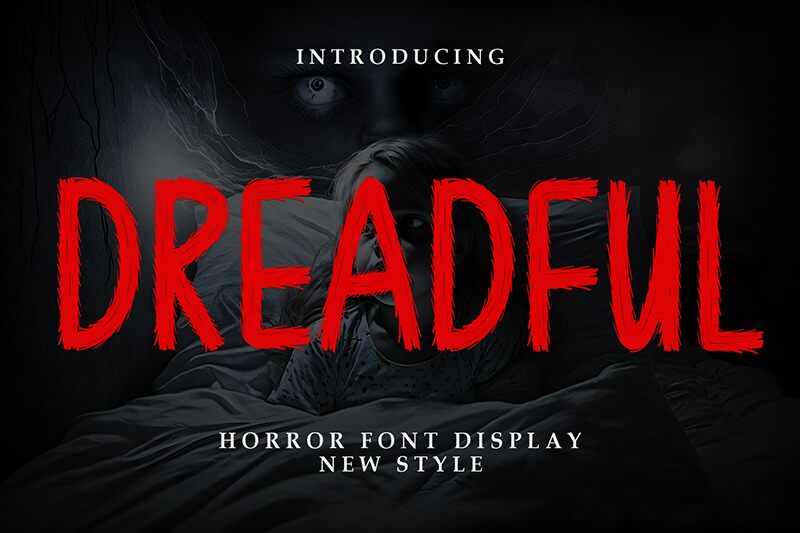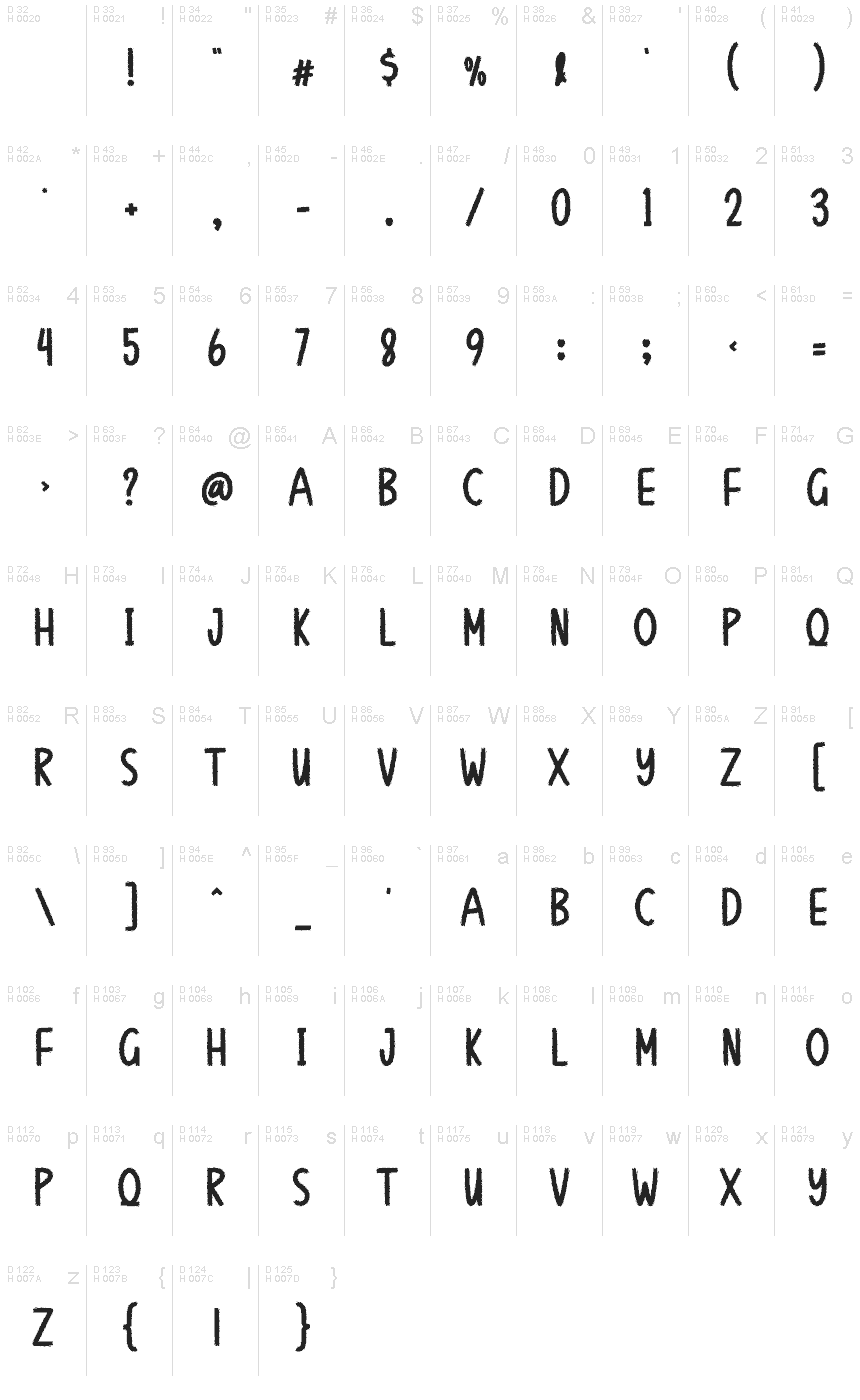
Dreadful
Dreadful font by Andi Moz is a free display font with a condensed character design and scary visual style. Each character looks hand-drawn with a clear textured style that’s produced through blank spaces which lets the background show. An edgy feel can easily be felt from this expressive rows of letters which also include other distressed visual effects for further beauty.
Use Dreadful to spell out fake or real horror movie titles, in book cover designs, T-Shirt prints, website images, social media posts, or posters you want to hang around Halloween. This amazing logo option even pairs well with different kinds of cartoon printed illustration styles!